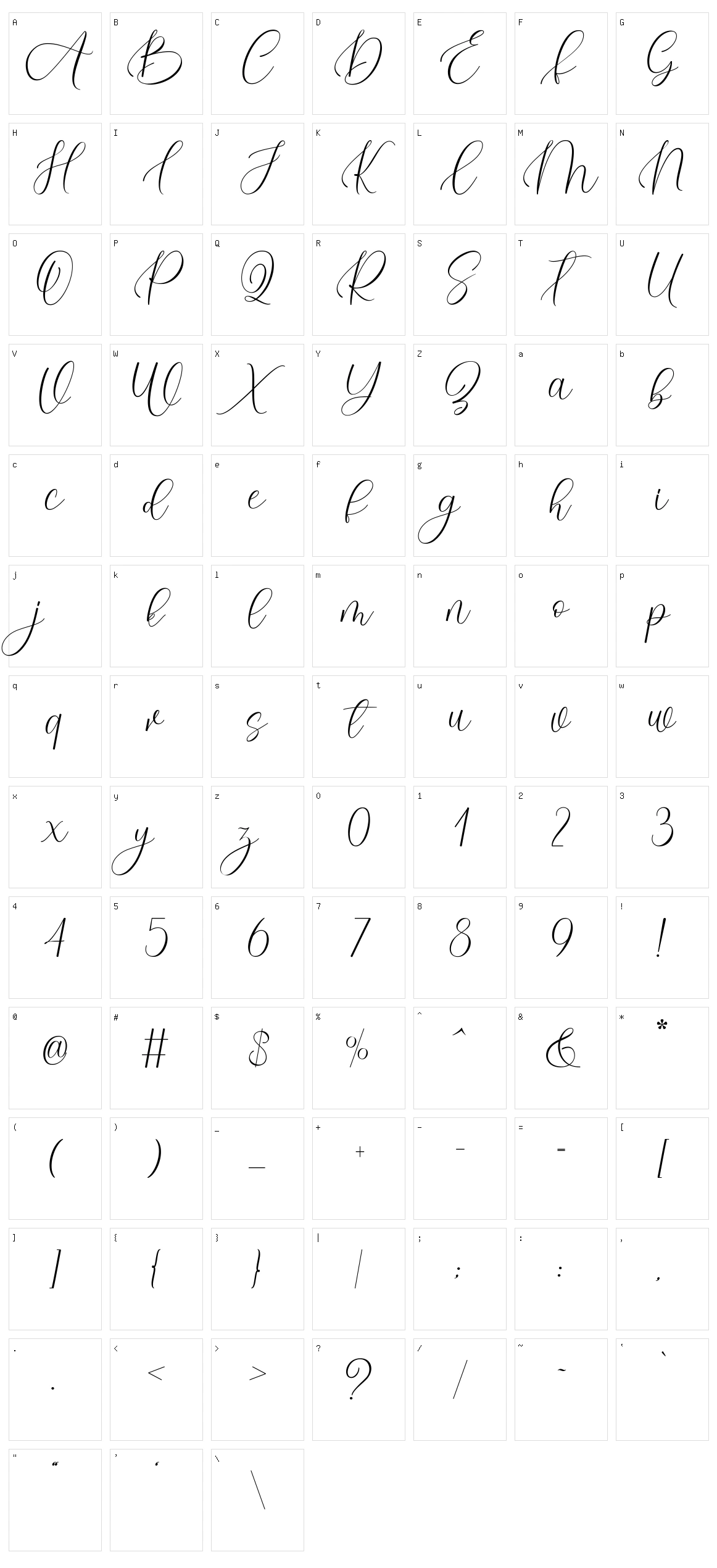
The free font Finolia is carefully designed by Four Lines, showcasing a thoughtful balance of creativity and usability and falls under the Script font style. When you download the ZIP file, it contains only 70.37 KB of font files, making it lightweight and quick to download. Please review the license details below to understand permitted usage and distribution rights. If license information is not available, we recommend using this font for personal projects only or contacting the author directly for commercial usage permissions.